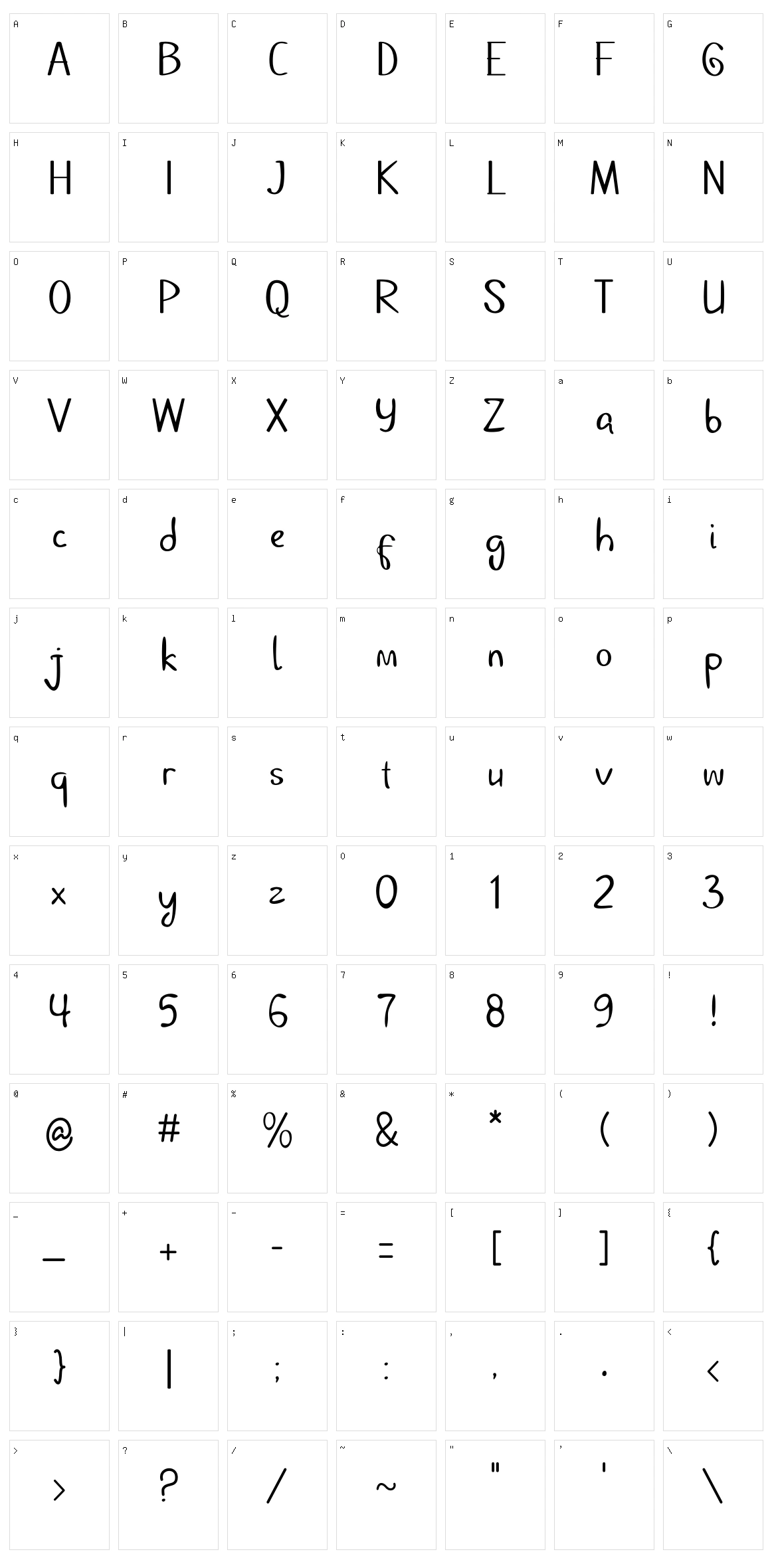
The free font Dhestscripter is carefully designed by Zkhai Creative, showcasing a thoughtful balance of creativity and usability and falls under the Script font style. When you download the ZIP file, it contains only 124.86 KB of font files, making it lightweight and quick to download. Please review the license details below to understand permitted usage and distribution rights. If license information is not available, we recommend using this font for personal projects only or contacting the author directly for commercial usage permissions.